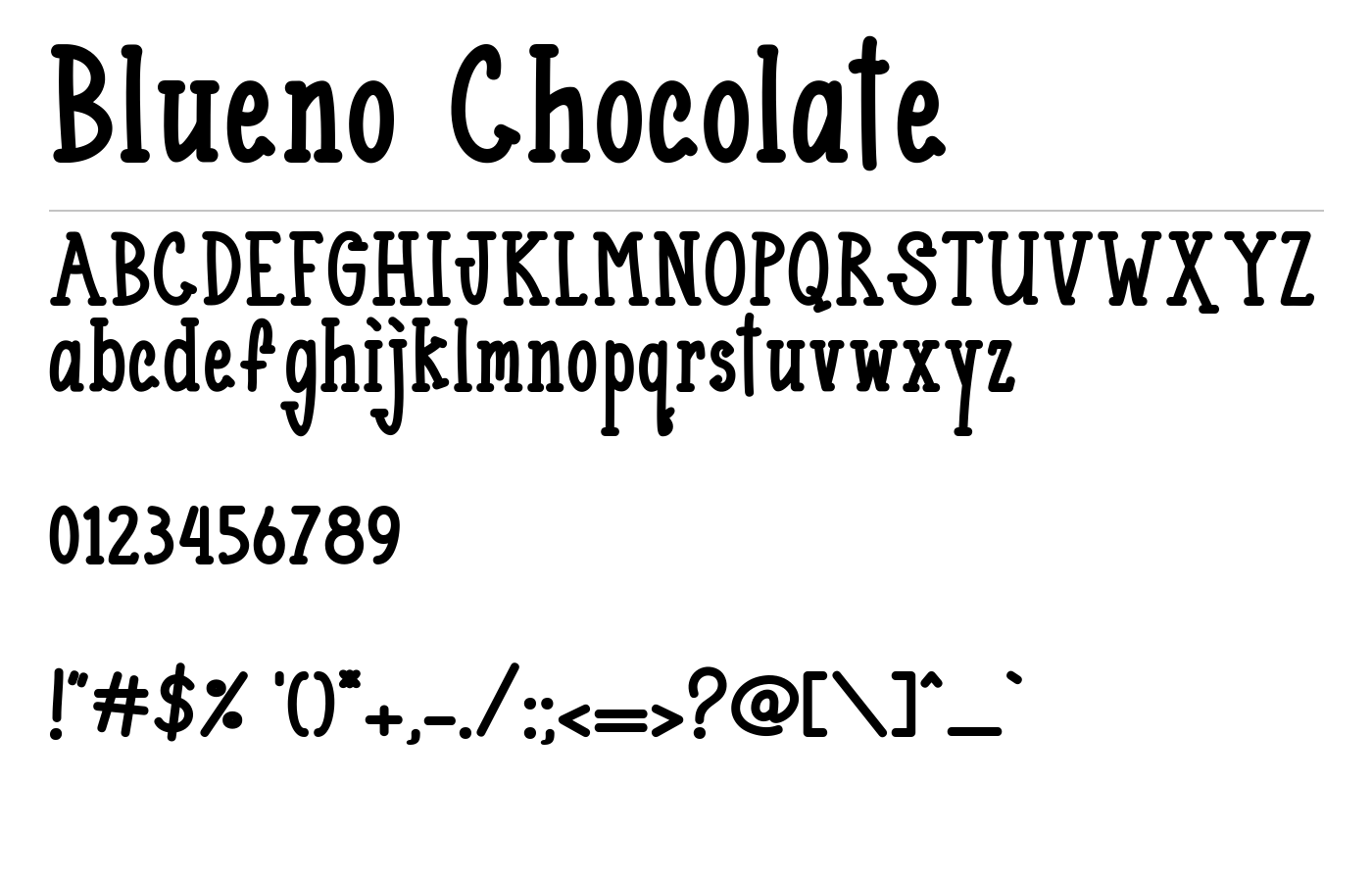
Blueno Chocolate is a playful, narrow slab serif font with a quirky, hand-crafted feel. Its tall, slightly irregular letterforms and rounded serifs give it a casual, friendly personality that works well for fun branding, children’s products, and creative editorial projects. The font’s unique charm and readability make it ideal for headlines and eye-catching titles where a warm, approachable vibe is desired.
Blueno Chocolate Font
About Blueno Chocolate Font
| Font family | Blueno Chocolate Font |
| Designer | Aldedesign 2019 |